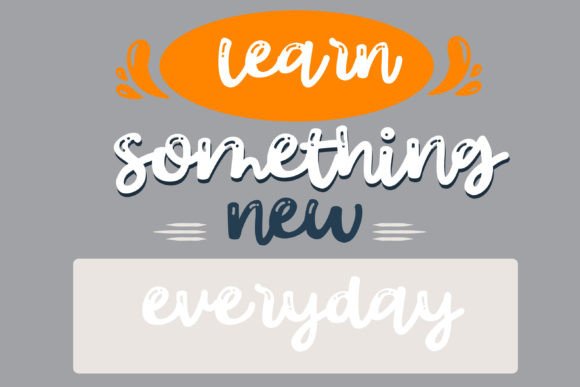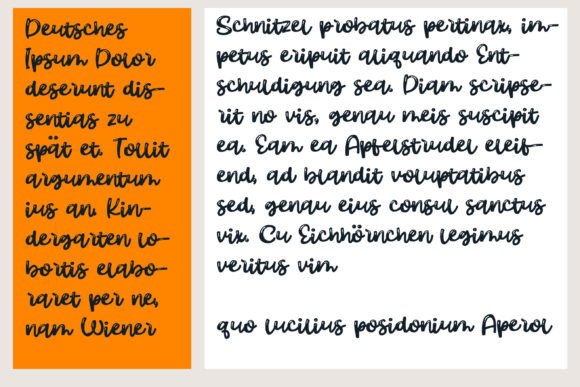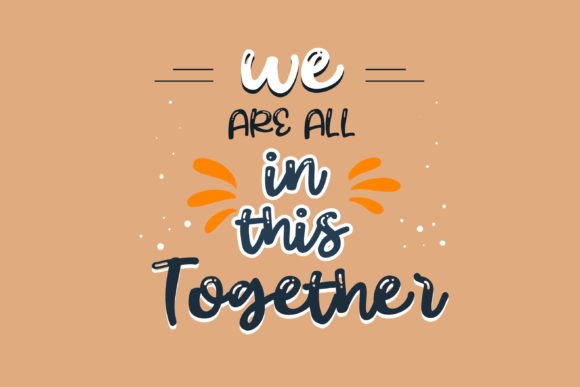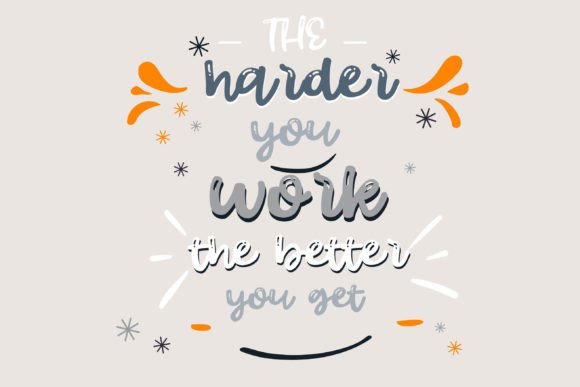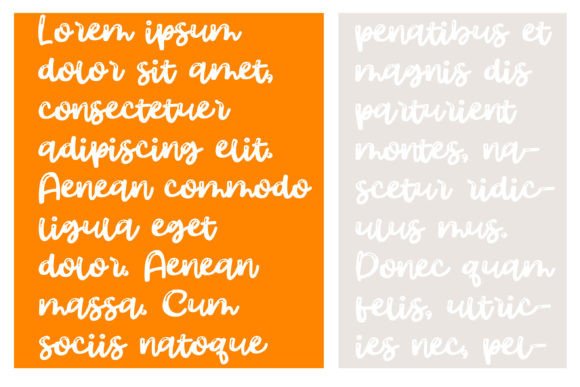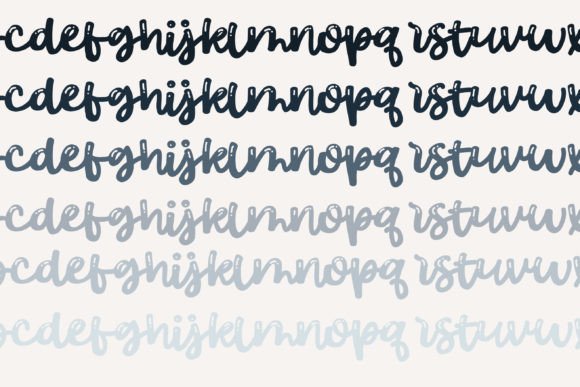
Introducing Budgulation Font: A Magical Hand-Written Cursive Script
Are you tired of using the same old fonts in your designs? Look no further! Budgulation Font is a unique and enchanting hand-written cursive script that will add a touch of magic to your creations. With its print-like uppercase letters, modern yet whimsical style, and flowing connections, this font is sure to immerse your designs into a world of wonder.
A Closer Look at Budgulation Font
Budgulation Font is a carefully crafted hand-written cursive script that boasts a distinctive print-like uppercase. This feature sets it apart from other cursive fonts and gives it a fresh, modern feel. The font’s whimsical style is perfect for designers and crafters who want to add a touch of personality to their work. Whether you’re creating invitations, branding materials, or digital content, Budgulation Font is sure to make your designs stand out.
Key Features of Budgulation Font
- Hand-written cursive script: Budgulation Font has a beautiful, flowing connection between letters that gives it a personal and organic feel.
- Print-like uppercase: The font’s uppercase letters have a clean, printed look that adds a touch of sophistication to your designs.
- Modern yet whimsical style: Budgulation Font has a unique blend of modern and playful elements that make it perfect for a wide range of design applications.
- Magical and enchanting: This font is sure to add a touch of magic to your designs and transport your audience to a world of wonder.
Budgulation Font is a versatile font that is perfect for designers and crafters who want to add a personal touch to their work. Whether you’re creating:
- Invitations: Use Budgulation Font to create beautiful, one-of-a-kind invitations for weddings, parties, and other special events.
- Branding materials: Add a touch of personality to your brand with Budgulation Font. Use it to create logos, business cards, and other marketing materials.
- Digital content: Use Budgulation Font to create engaging and eye-catching digital content, such as social media graphics, blog posts, and email newsletters.
- Craft projects: Add a touch of magic to your craft projects, such as scrapbooking, card making, and DIY gifts.
Why Choose Budgulation Font?
With so many fonts to choose from, why choose Budgulation Font? Here are just a few reasons:
- Unique and distinctive: Budgulation Font is a one-of-a-kind font that will set your designs apart from the crowd.
- Easy to read: Despite its whimsical style, Budgulation Font is easy to read and understand, making it perfect for a wide range of design applications.
- Versatile: Budgulation Font can be used for both digital and print projects, making it a great addition to any designer’s toolkit.
In conclusion, Budgulation Font is a magical hand-written cursive script that is sure to add a touch of wonder to your designs. With its print-like uppercase letters, modern yet whimsical style, and flowing connections, this font is perfect for designers and crafters who want to create unique and eye-catching work. Whether you’re creating invitations, branding materials, digital content, or craft projects, Budgulation Font is sure to immerse your designs into a magical world.